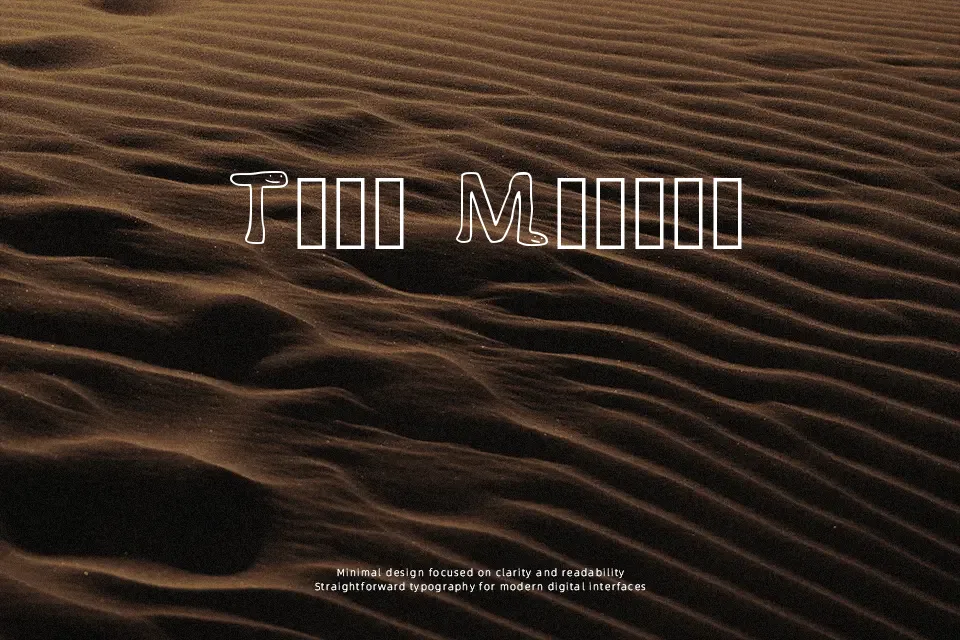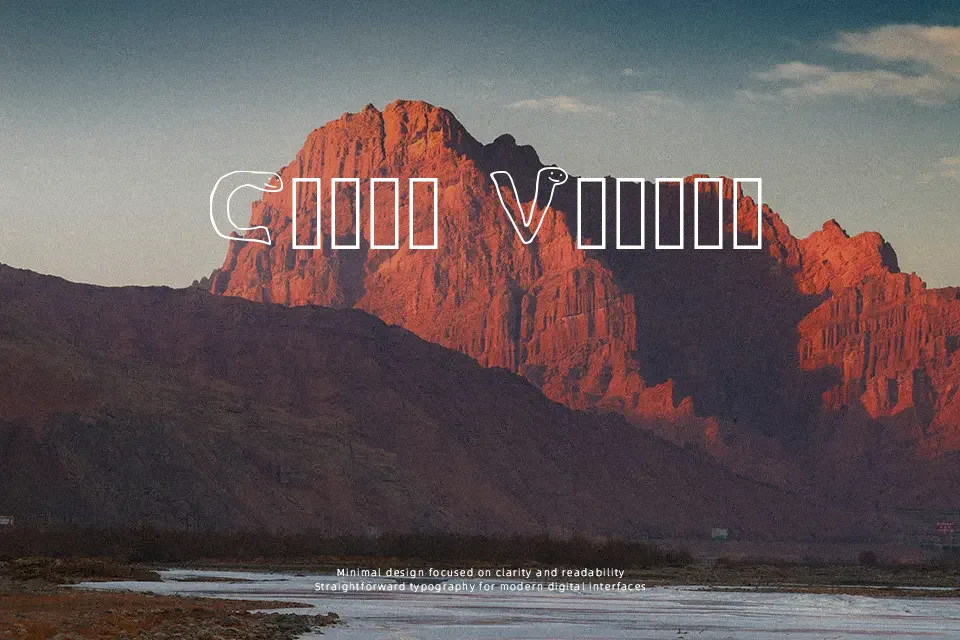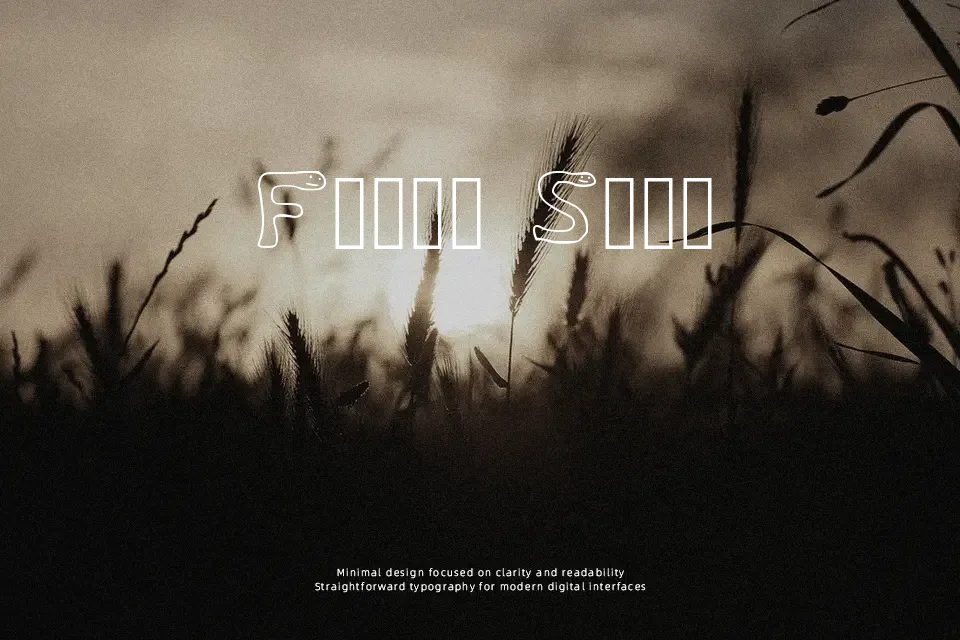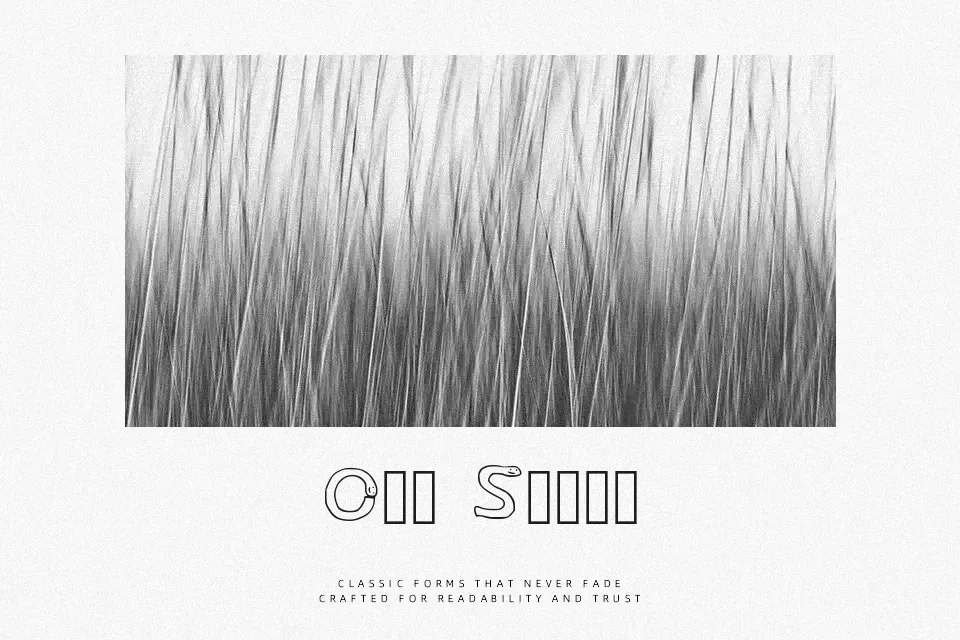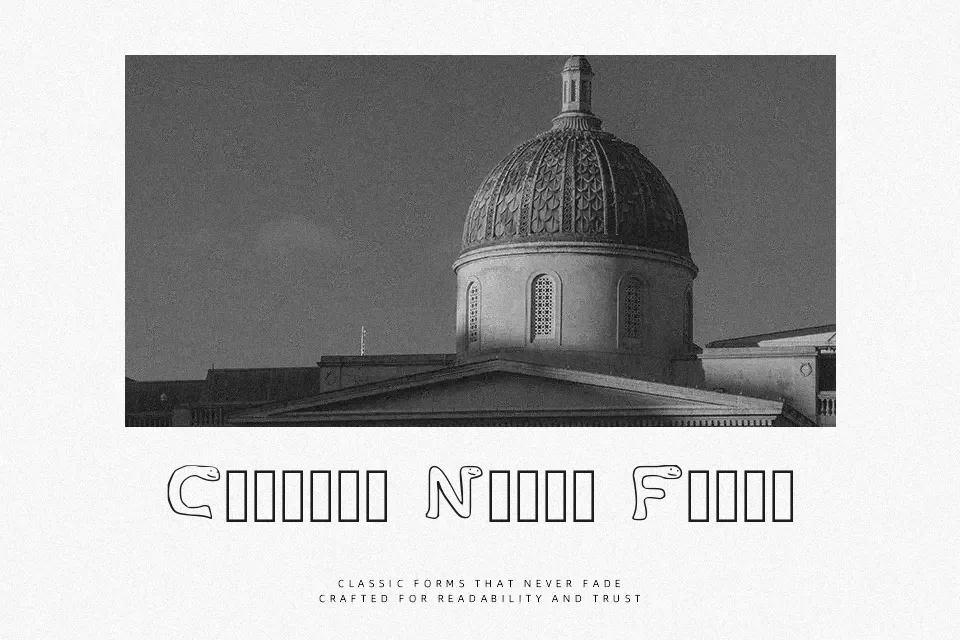
Times New Wumpus Font
Designed by GreyPlateau
Times New Wumpus Font combines traditional serif anatomy with exaggerated cartoon styling, presenting completely hollow, outlined letterforms. The strokes maintain a uniform outline thickness with softly curved terminals and wide proportions that give each character a whimsical presence. Character spacing is slightly expanded to prevent overlapping contours, though the lack of solid fill demands careful placement against busy backgrounds. The open interior structure helps maintain character recognition in large headline formats, making the design suitable for amusement park signage, toy packaging, and video game titles. However, the absence of lowercase characters and delicate contour lines make the typeface unsuited for body text and small captions.
Best For: toy packaging, children’s book titles, amusement park posters
Not Ideal For: continuous body text, small interface labels, dense legal documents
Perfect for gaming, headline, and kids, with a creative and cartoon style.